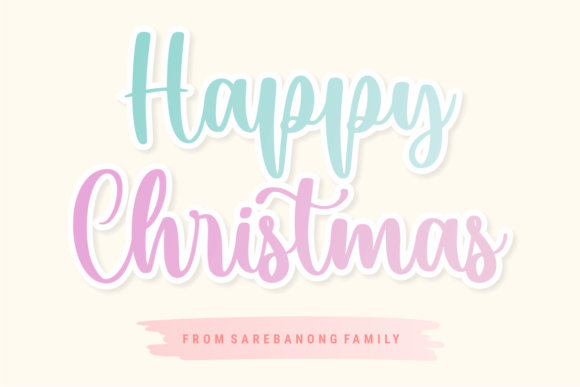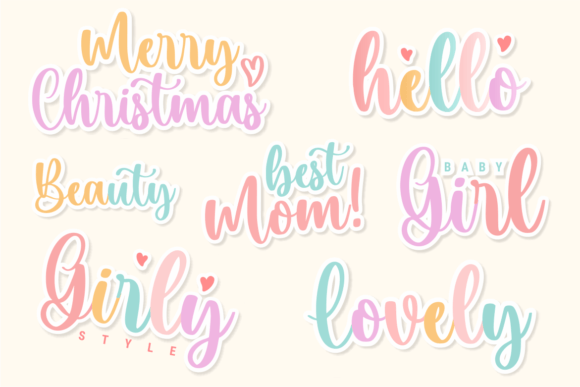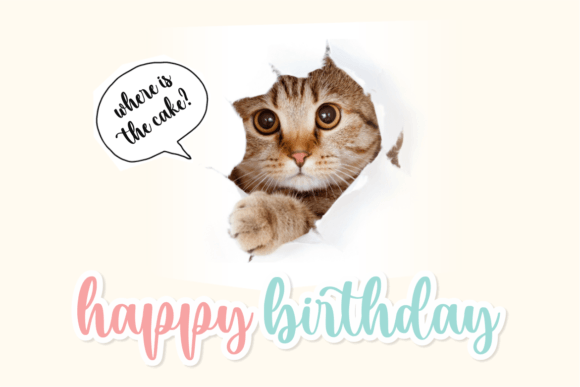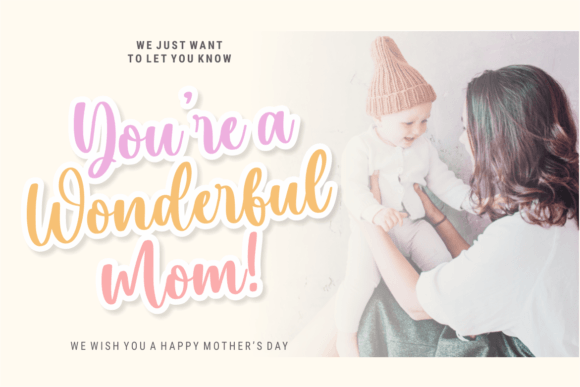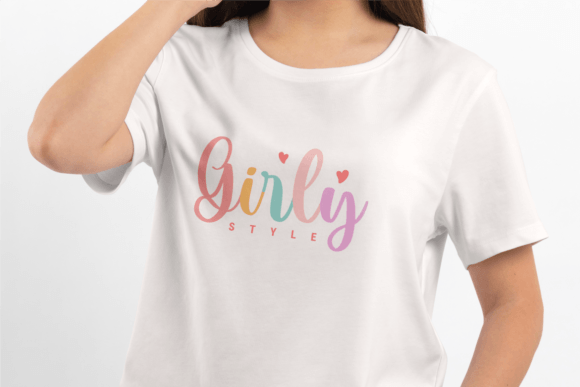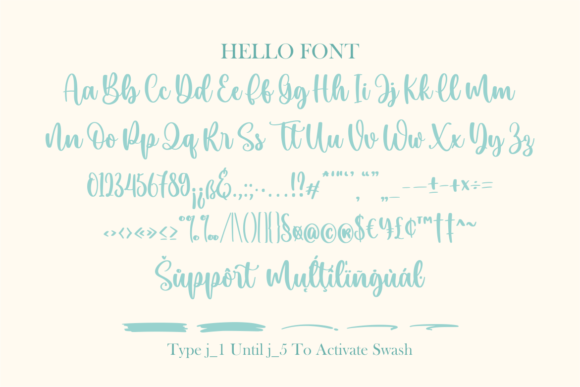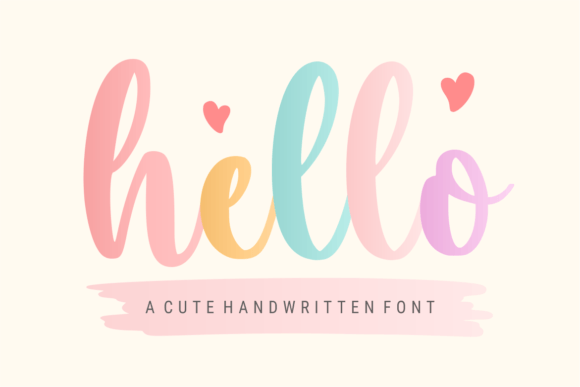
Introducing Hello Font: The Perfect Addition to Your Design Arsenal
Are you tired of using the same old fonts in your designs? Look no further than Hello Font, a delicate, cute, and stylish handwritten font that’s perfect for a wide range of applications. Whether you’re creating greeting cards, headlines, wedding themes, Christmas decorations, birthday wishes, quotes, stickers, or just overlays on images, Hello Font is sure to elevate your creations to the next level.
What Makes Hello Font So Special?
Hello Font is a unique and versatile font that’s designed to add a touch of personality to your designs. Its delicate and cute style makes it perfect for creating whimsical and romantic designs, while its stylish and modern look ensures that it will fit right in with even the most contemporary designs.
One of the things that sets Hello Font apart from other fonts is its incredible versatility. Whether you’re creating digital designs or printing them out, Hello Font will look great in any size or format. It’s also highly legible, making it perfect for use in body text or captions.
Applications for Hello Font
So, what can you use Hello Font for? The possibilities are endless! Here are just a few ideas to get you started:
- Greeting Cards: Add a personal touch to your greeting cards with Hello Font. Whether you’re creating birthday cards, Christmas cards, or just a simple thank-you note, Hello Font is sure to make your card stand out.
- Headlines: Use Hello Font to create eye-catching headlines for your blog posts, social media updates, or marketing materials. Its stylish and modern look is sure to grab attention and draw readers in.
- Wedding Themes: Hello Font is perfect for creating beautiful and romantic wedding themes. Use it to create custom wedding invitations, decorations, and more.
- Christmas and Birthday Decorations: Add a touch of festive cheer to your Christmas and birthday decorations with Hello Font. Create custom banners, garlands, and other decorations that are sure to impress.
- Quotes and Stickers: Use Hello Font to create inspiring quotes and stickers that you can share on social media or use to decorate your designs.
- Overlays: Add a touch of personality to your images with Hello Font overlays. Use it to create custom overlays for your photos, graphics, or other designs.
Why Designers and Crafters Love Hello Font
So, why do designers and crafters love Hello Font? Here are just a few reasons:
- Easy to Read: Hello Font is highly legible, making it perfect for use in body text or captions.
- Versatile: Hello Font can be used for a wide range of applications, from digital designs to print materials.
- Unique: Hello Font has a unique and stylish look that’s sure to make your designs stand out.
- Customizable: Hello Font can be customized to fit your needs. Use it in different sizes, colors, and formats to create a look that’s all your own.
Hello Font is a delicate, cute, and stylish handwritten font that’s perfect for designers and crafters. Its versatility, legibility, and unique style make it a great addition to any design arsenal. Whether you’re creating greeting cards, headlines, wedding themes, Christmas decorations, birthday wishes, quotes, stickers, or just overlays on images, Hello Font is sure to elevate your creations to the next level. So why wait? Download Hello Font today and start creating beautiful, inspiring designs that will leave a lasting impression!